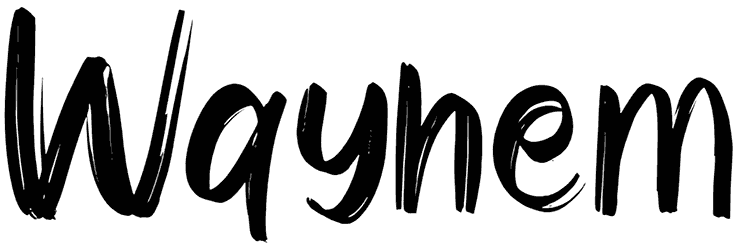
Wayhem Font
Join us to introduce a hand-drawn font with an urban and cool mood. Wayhem is a brush font that properly gives your design a realistic look with more faded parts. This script font with its brush texture can artfully display your following projects, such as illustrations, posters, product packaging, and others the same.
Wayhem is a textured brush font with rough and casual letters. It’s great for logos, branding, print projects and any attention drawing headline.